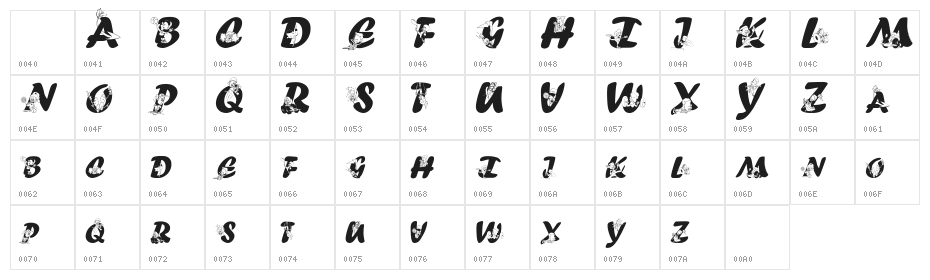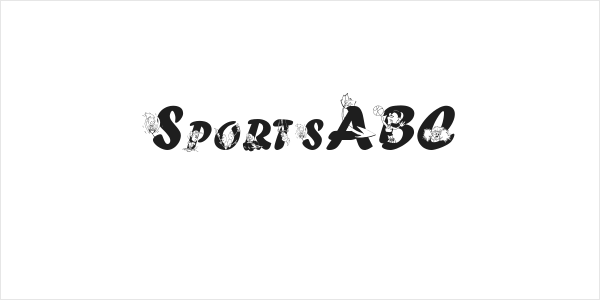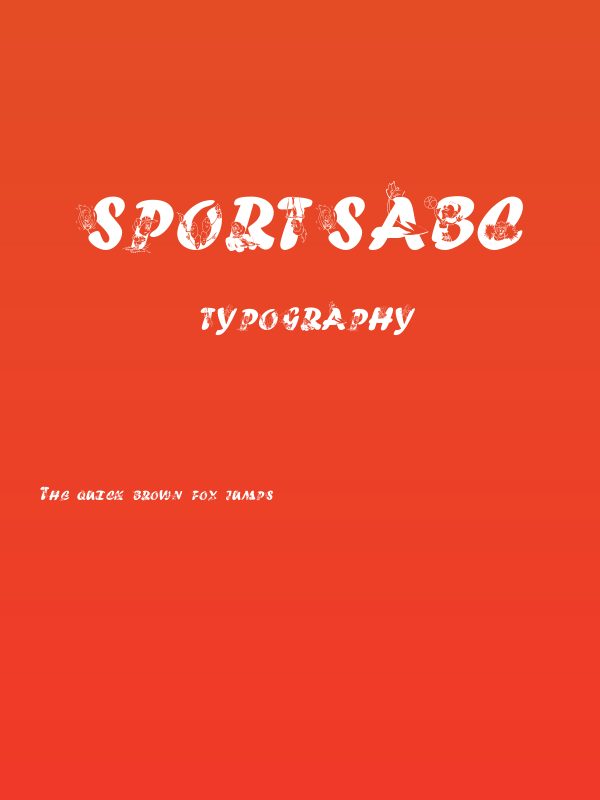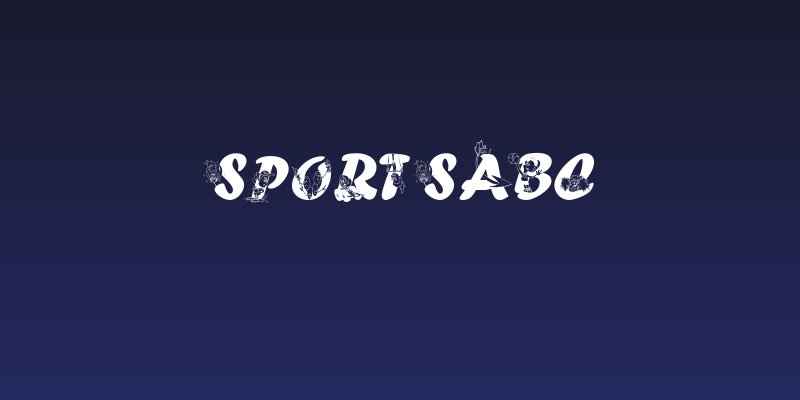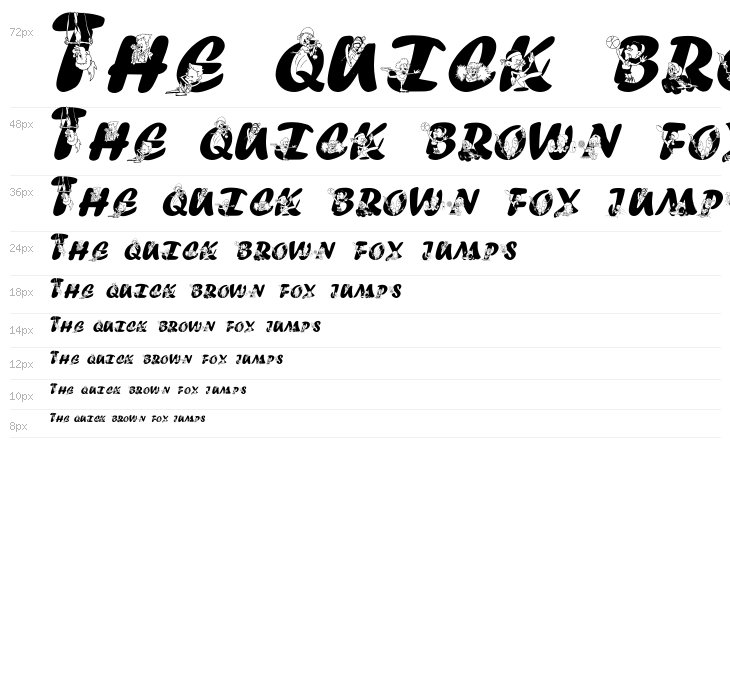
SportsABC Font
| Stil general | Playful, Energetic, Decorative |
| Caz de utilizare | Headlines, Posters, Branding |
| Proiecte propuse | Ideal for sports event posters, children's sports programs, playful branding, and themed merchandise. |